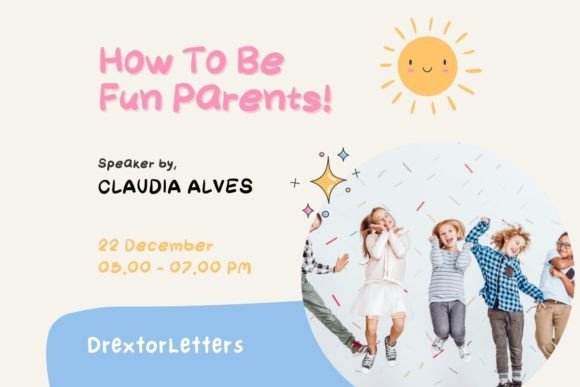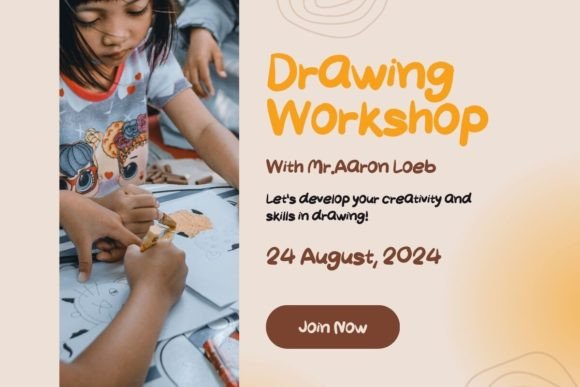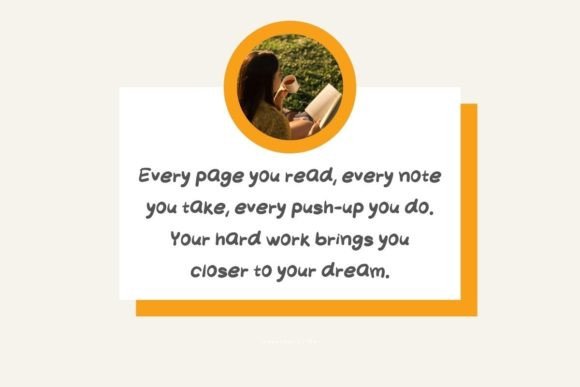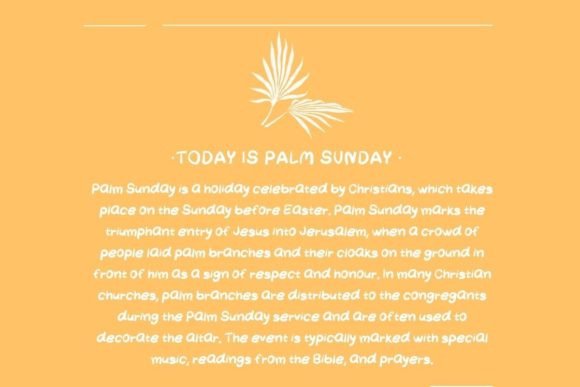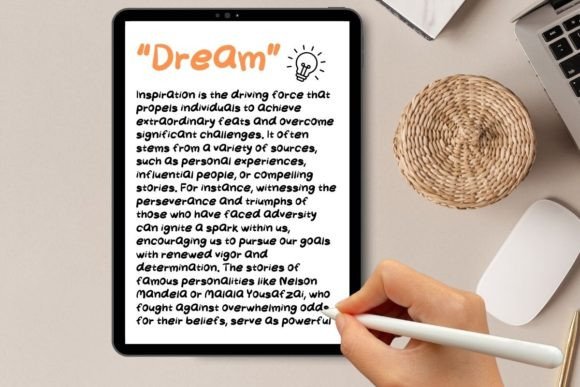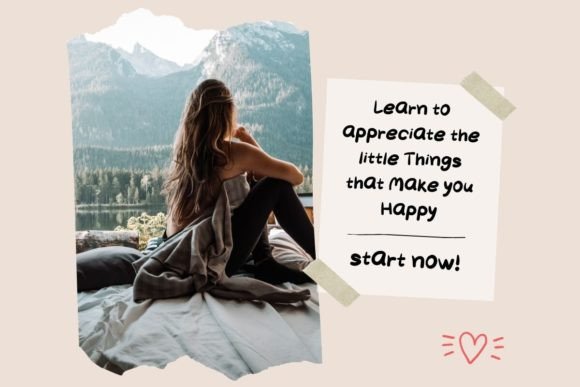
Introduction to Madam Candy Font Font
Fonts play a crucial role in design, and the Madam Candy Font font is a typeface that brings both character and versatility to any project. Whether you’re working on a branding project, a website, or a print design, the Madam Candy Font font offers a unique style that can elevate your work.
Madam Candy Font is a cute & realistic handwritten font, perfect for digital note-taking.
Its versatility makes it ideal for various projects such as Procreate designs, blog posts, logos, branding, digital planners, invitations, greeting cards, photo albums, and much more .
Key Features of Madam Candy Font Font
Why Choose Madam Candy Font Font?
The Madam Candy Font font is more than just a typeface – it’s a design tool that helps you communicate your message with style and clarity. Its unique character set and versatile design make it suitable for a wide range of applications, from elegant invitations to bold headlines.
With its carefully crafted letterforms and balanced proportions, the Madam Candy Font font ensures readability and visual appeal across all mediums.
What makes Madam Candy Font font special?
The Madam Candy Font font stands out with its unique design, exceptional readability, and versatility across various design applications.